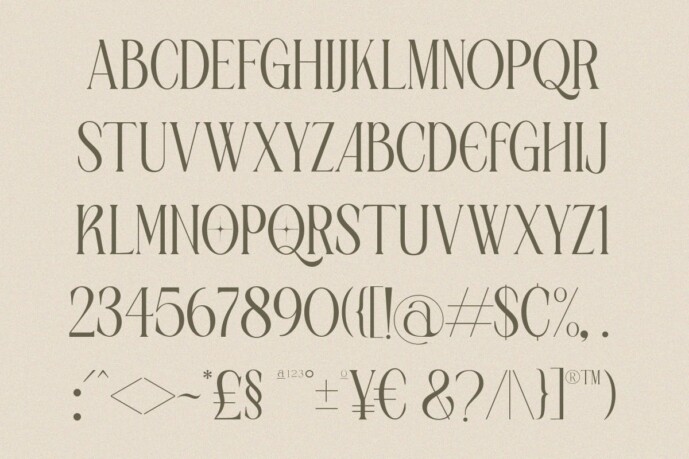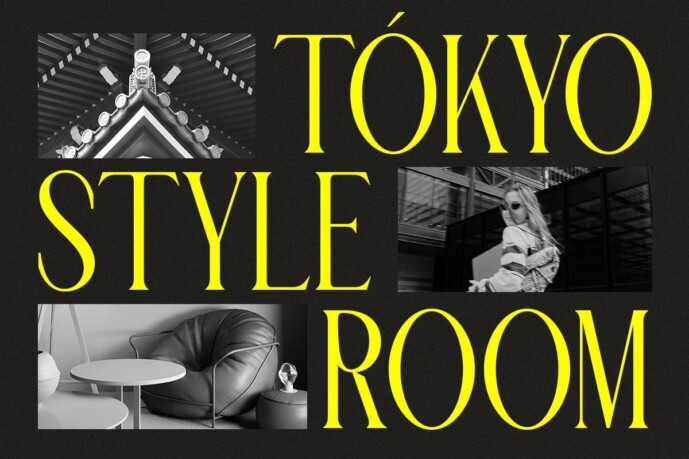
Gramon Font
Gramon Font , a stunning condensed font that combines style and elegance down to the smallest details. Designed to give a modern and sophisticated impression, Gramon features clean and elegant letters with harmonious proportions. Each character is meticulously designed to bring a contemporary touch.
Thanks to its condensed structure, Gramon allows more text to be displayed in a limited space without sacrificing readability. Gramon easily adapts to different design contexts, both print and digital. Its minimalist approach ensures your message is delivered clearly and impactfully. This font combines elegance and simplicity to create a timeless aesthetic.
Despite its condensed form, Gramon maintains excellent readability regardless of size. It is equipped with a wide range of characters supporting multiple languages, making it an ideal choice for global projects. Additionally, Gramon offers various elegant ligatures and alternative characters, enabling creative and unique typographic expressions